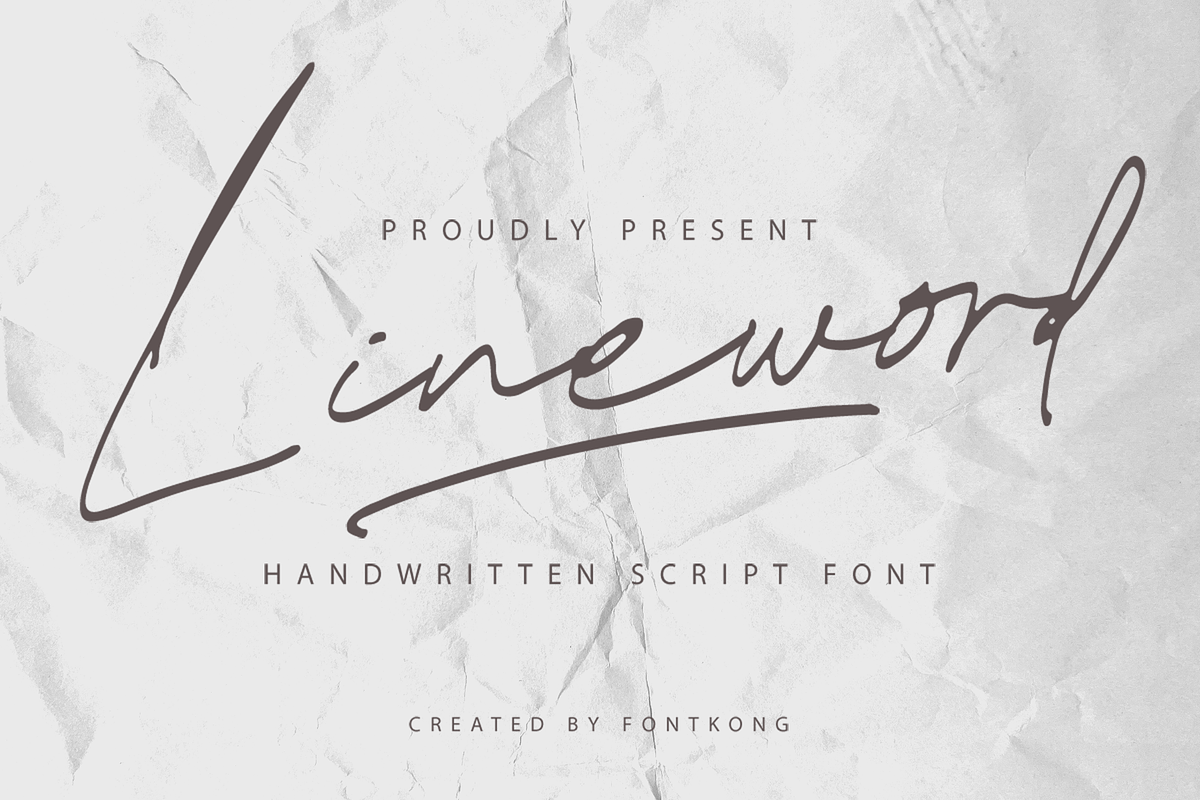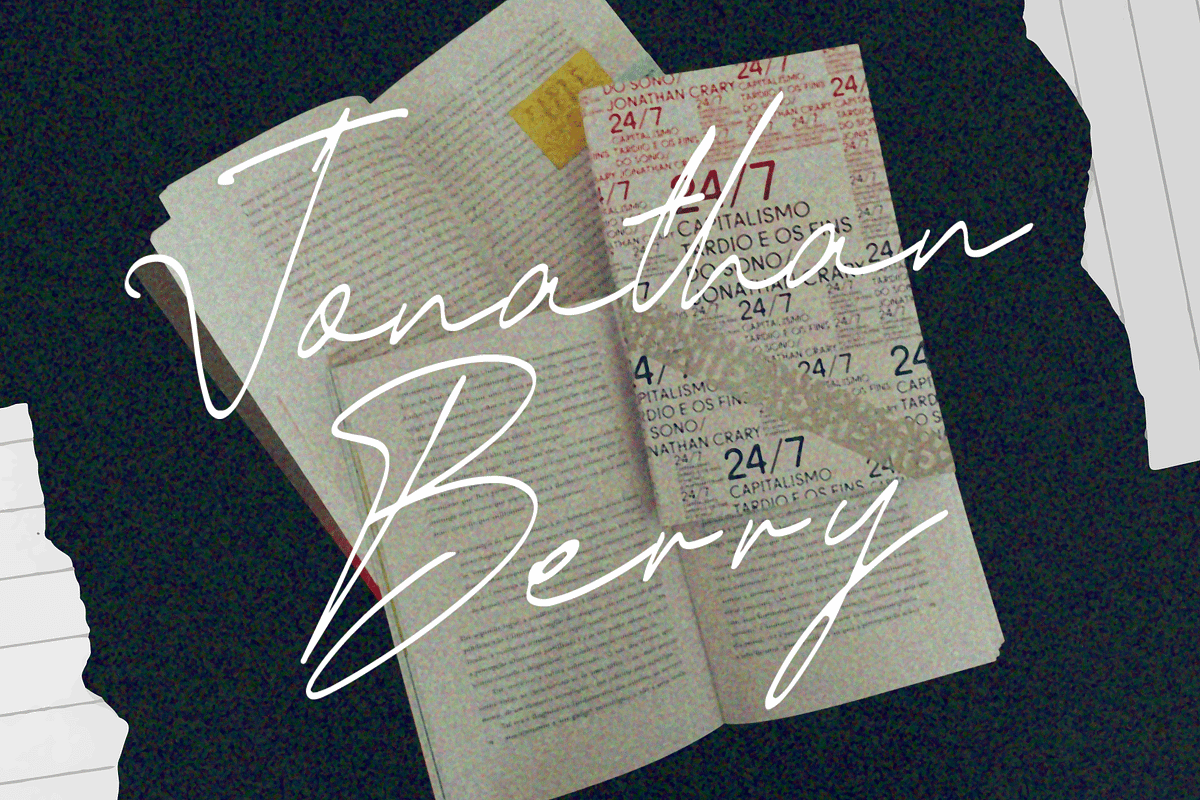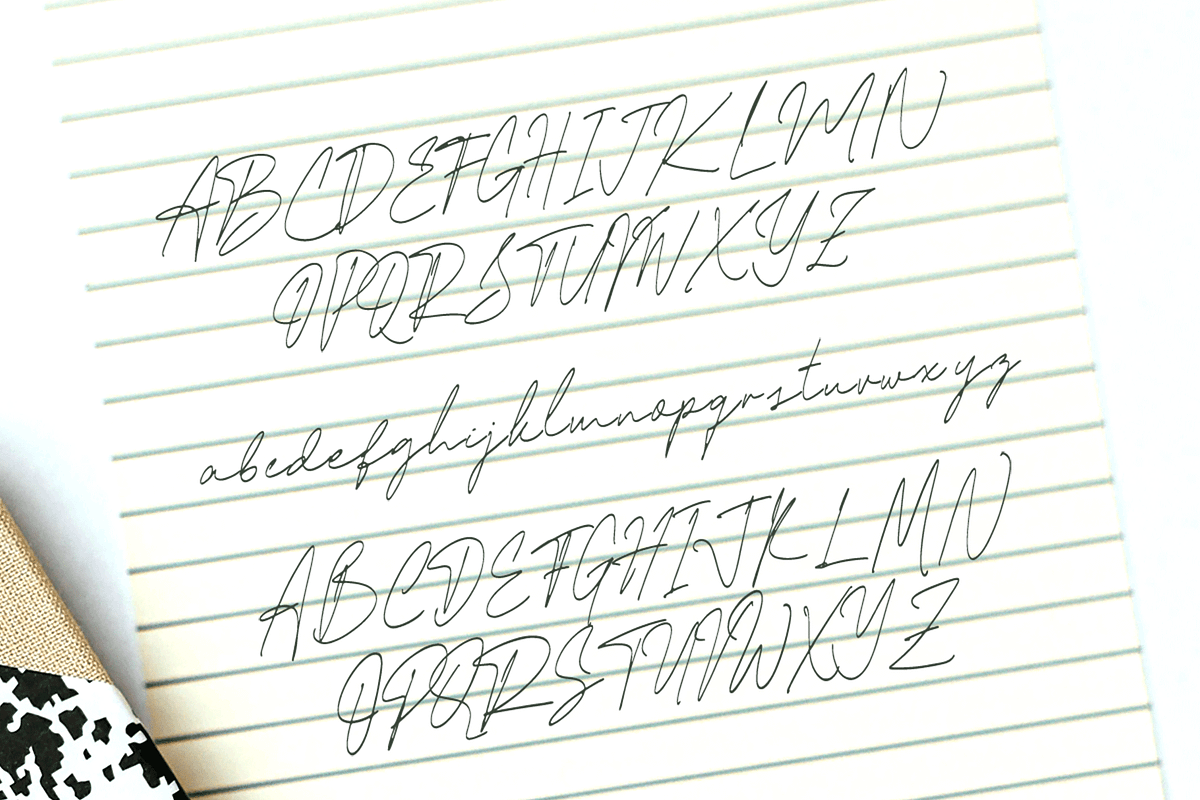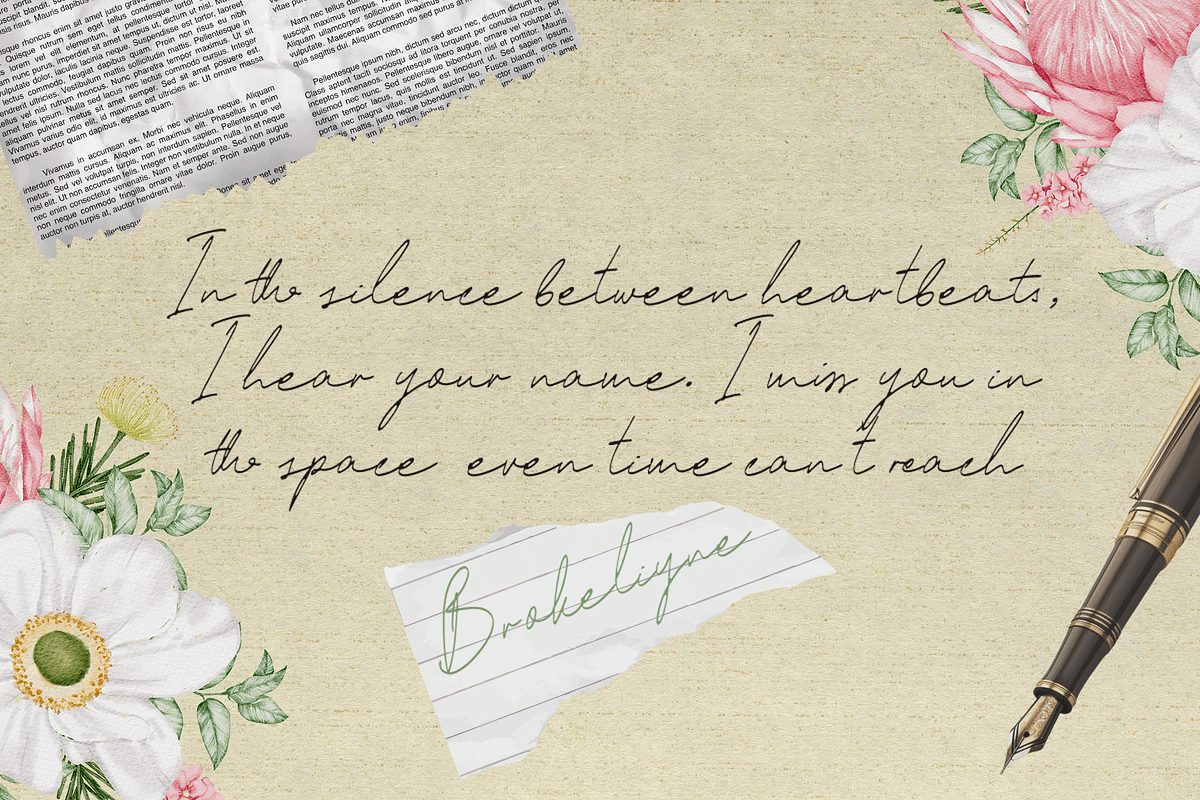
Lineword – Casual Handwritten Script
Lineword – Casual Handwritten Script Font
Lineword is a handwritten script font that captures the relaxed elegance of natural handwriting. With its flowing curves and smooth lines, this font is perfect for personal branding, social media graphics, quotes, wedding invitations, product packaging, and any design that calls for a warm, personal touch.
Crafted to mimic real handwriting, Lineword brings authenticity and softness to your projects. Its casual yet refined style makes it both versatile and visually appealing.